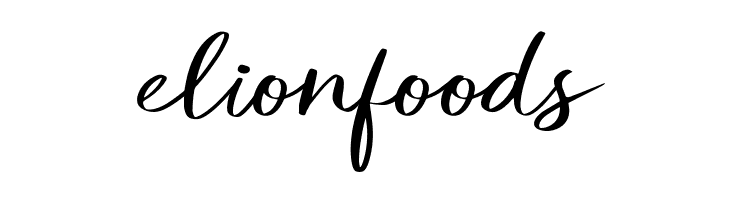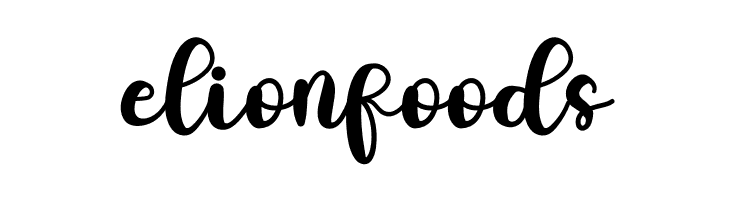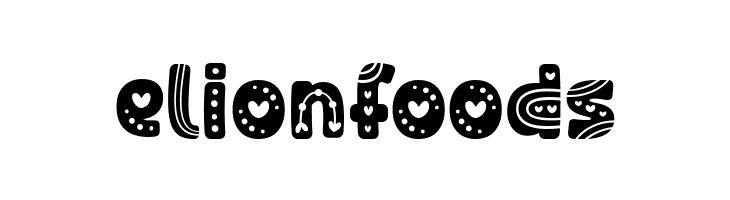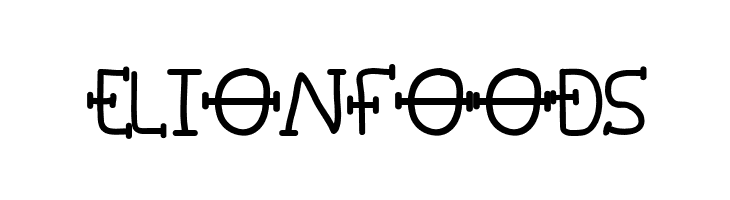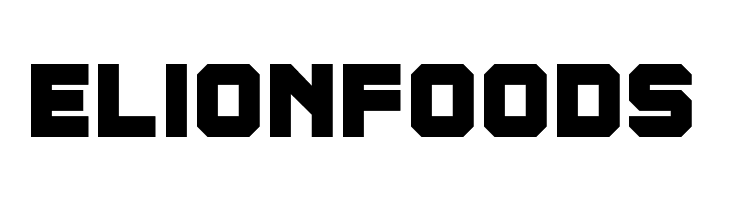
A playful, modern font with rounded edges and a clean, minimalist aesthetic.
A playful, bold, and hand-drawn font with rounded edges and a friendly feel.
A bold, distressed font with a grunge texture and strong visual impact.
An elegant script font with flowing cursive lines and intricate swashes.
A lively and flowing script font with a modern touch.
A playful, bold, and slightly slanted font with rounded characters.
A playful, handwritten font with tall, narrow, and slightly slanted letters.
Bold, playful decorative font with heart and pattern motifs.
An elegant script font with graceful curves and sophisticated style.
A lively and expressive script font with flowing, connected letterforms.
A lively, flowing script font with elegant cursive strokes.
A lively and elegant script font with fluid, cursive strokes.
A lively handwritten font with fluid, dynamic strokes and a casual vibe.
A charming and elegant script font with flowing, cursive letterforms.
A playful, handwritten-style font with consistent stroke width and friendly appearance.
A charming and fluid script font with elegant, flowing letterforms.
A delicate and elegant script font with flowing, whimsical curves.
A playful, dot-adorned font with a whimsical, hand-drawn style.
A whimsical, decorative font with heart motifs and playful swirls.
A whimsical and decorative font with playful curves and charming details.
A bold, distressed font with a vintage, grunge texture.
A bold, geometric font with a strong, angular design.
A playful and elegant script font with flowing, cursive design.
An elegant, flowing script font with ornate uppercase and smooth lowercase letters.